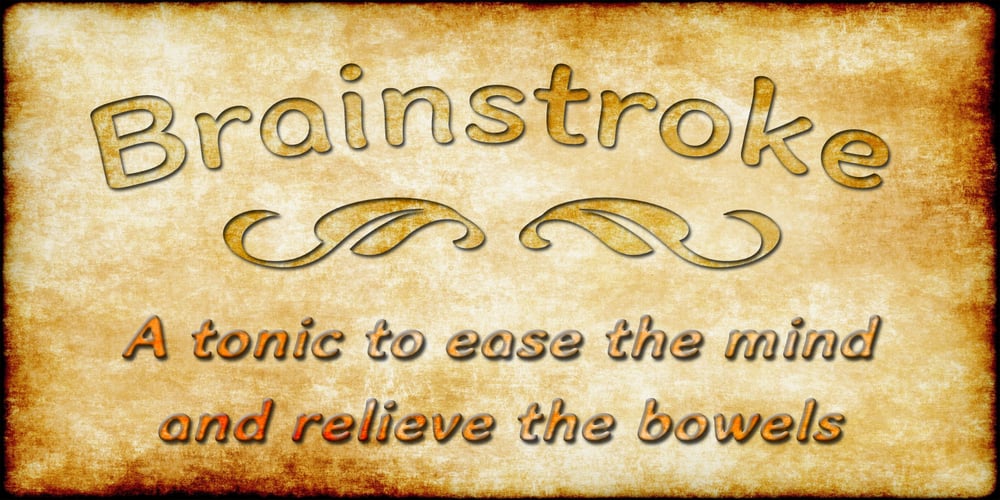
Brainstroke
Brainstroke font
Brainstroke Font Family was designed by Graham Meade and published by Typotheticals. Brainstroke contains 14 styles and family package options. Brainstroke is a collection of twelve variations on a typeface.This release was supposed to be a much larger set, but due to a medical issue, where I recently suffered a stroke, I am releasing only those that I managed to complete. The name is a reminder to me to take care of my health.Updated with two free Xmas versions – These are color fonts and will only work properly in software that supports color fonts